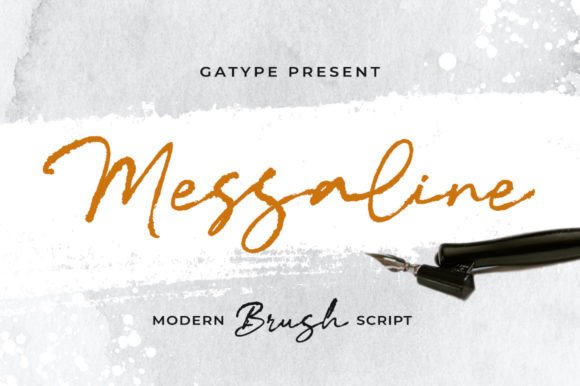
Step into the world of elegance and sophistication with Messaline Font - a brush script that exudes luxury and grace. Crafted by the talented hands of gatype, this mesmerizing font evokes a sense of opulence and charm, making it the perfect choice for creating designs that speak volumes.
With its relaxed and luxurious strokes, Messaline Font dances across the page, captivating the eyes with its enchanting allure. It's a symphony of flowing lines and graceful curves, effortlessly adding a touch of refinement to any project.
Unleash your creativity with Messaline Font and elevate your designs to new heights. Its versatility knows no bounds, making it suitable for a wide array of projects, from book titles and stationery designs to quotes, branding, logos, and more.
Picture your designs adorned with Messaline Font, radiating a timeless elegance that sets them apart from the ordinary. Imagine your clothing line adorned with its captivating strokes, or your invitations exuding a sense of grandeur. Messaline Font breathes life into your creations, transforming them into works of art.
Join the ranks of discerning designers who have discovered the magic of Messaline Font. Let your imagination soar as you craft designs that leave an unforgettable impression. Embrace the beauty of Messaline Font and unlock a world of elegance and sophistication.